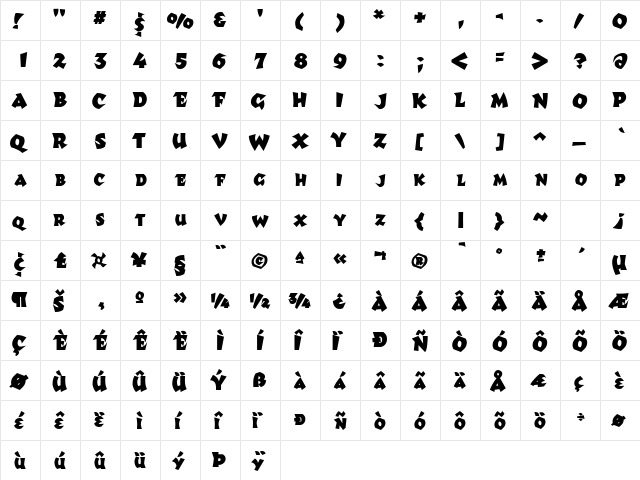
DustupSCapsSSK Bold Font Preview
DustupSCapsSSK Bold
DustupSCapsSSK Bold Font Details
Design Context for DustupSCapsSSK Typeface
DustupSCapsSSK is a composed and adaptable typeface that performs quietly and consistently across a wide range of design contexts. Its bold stroke weight gives it real presence on the page.